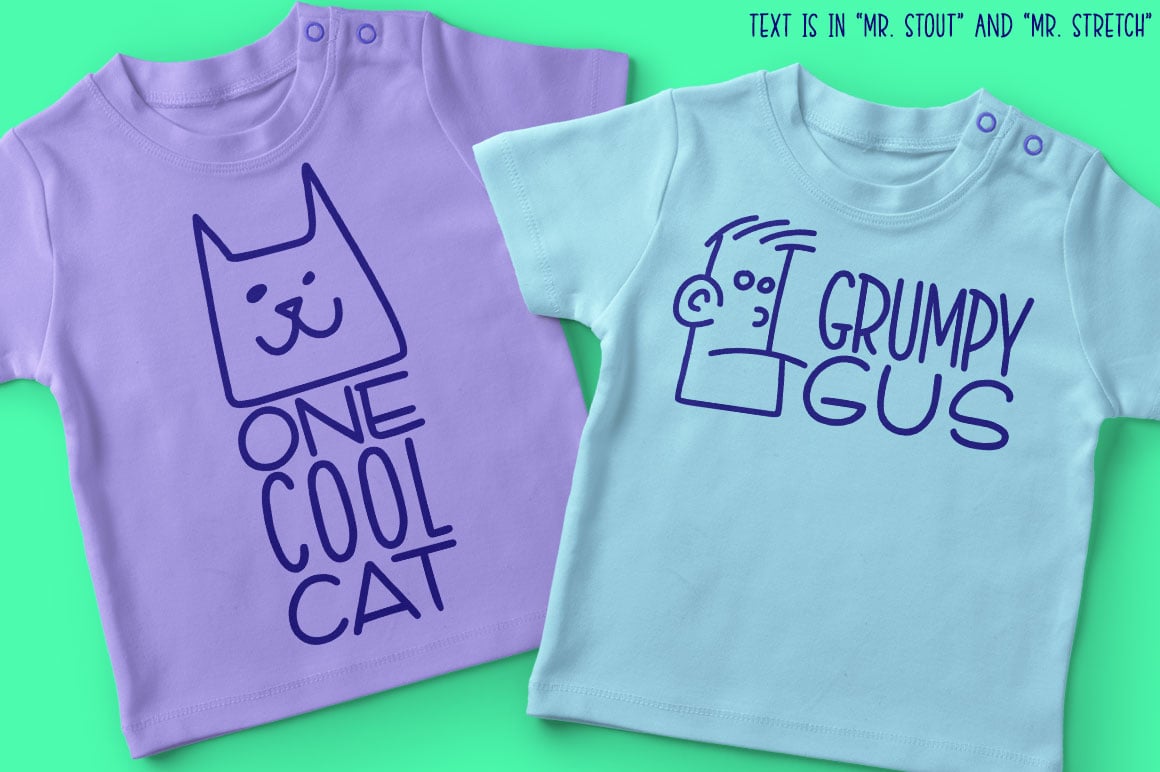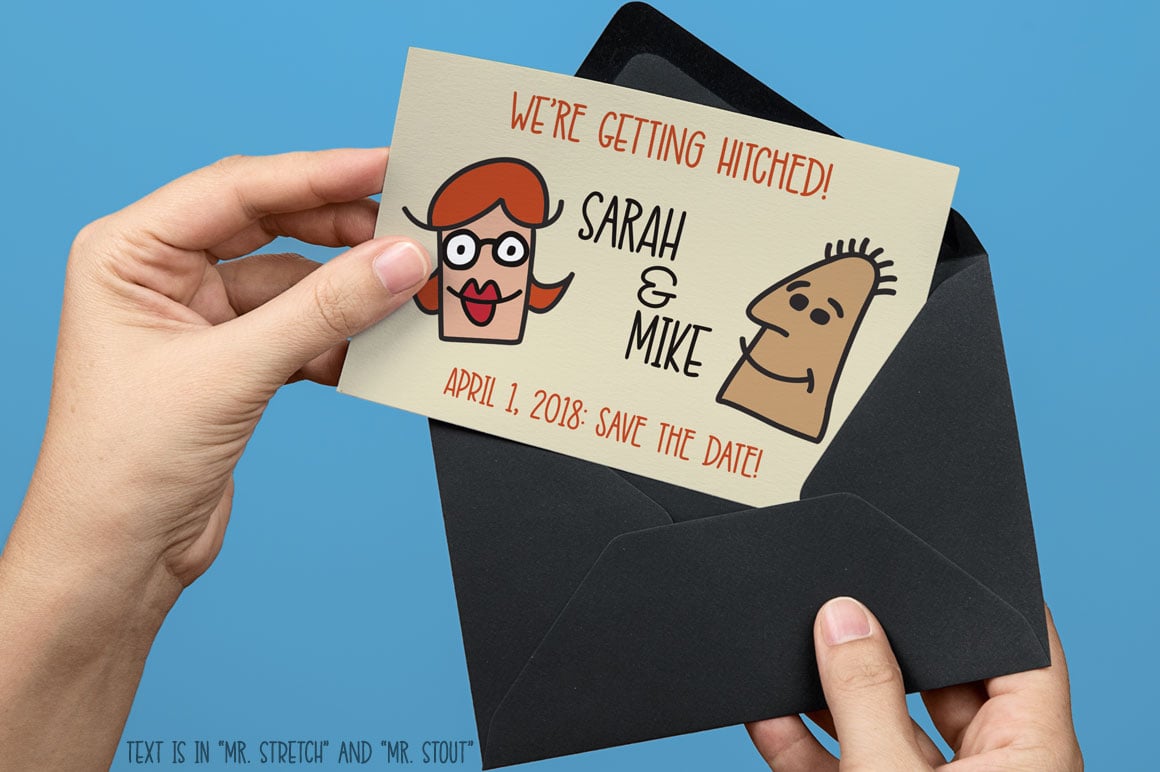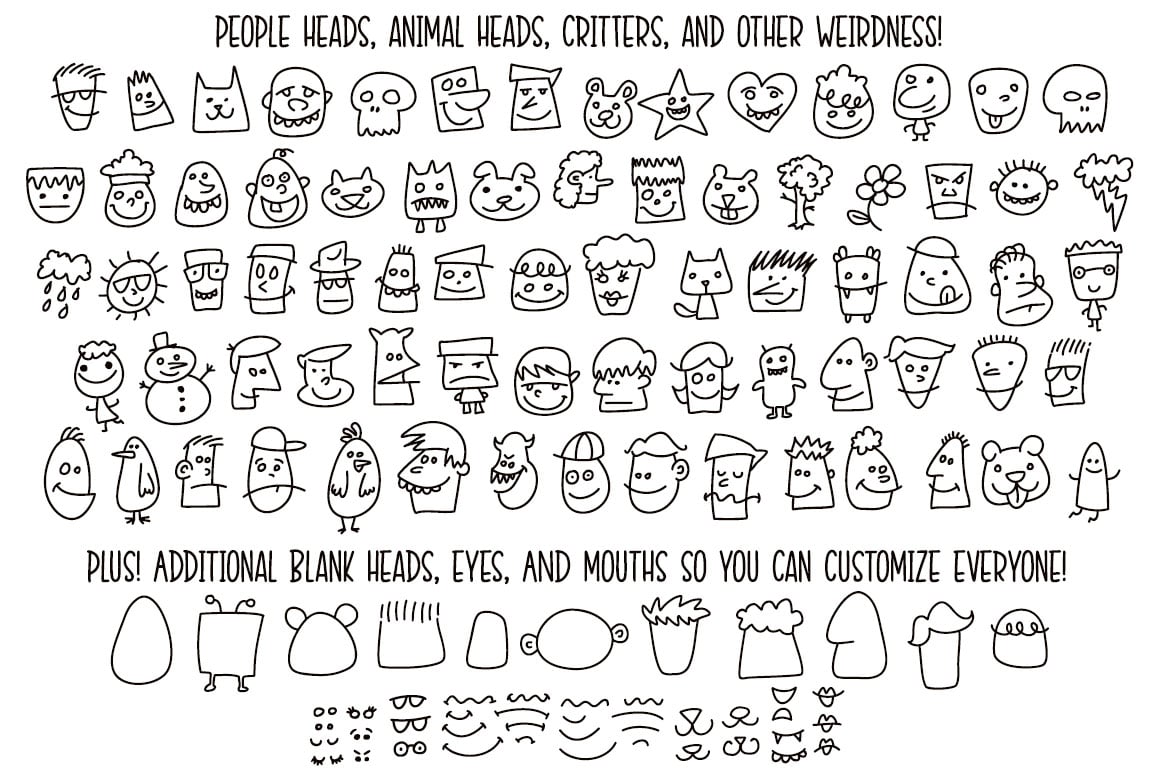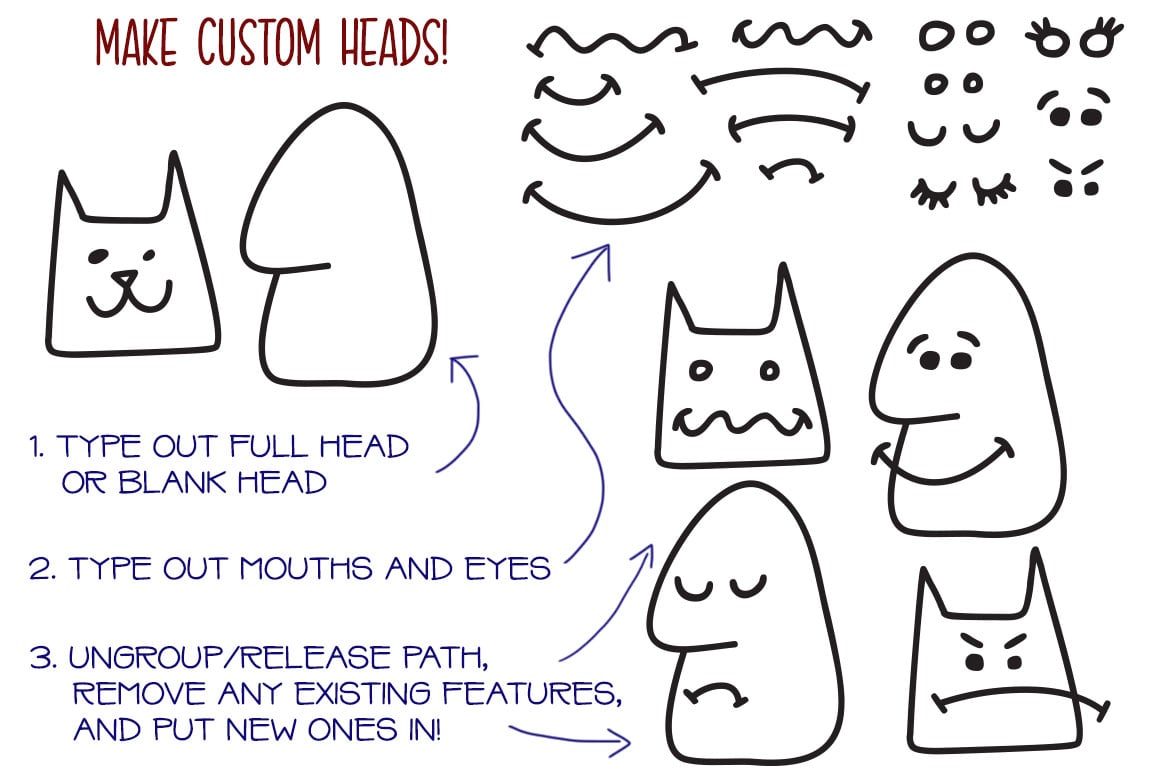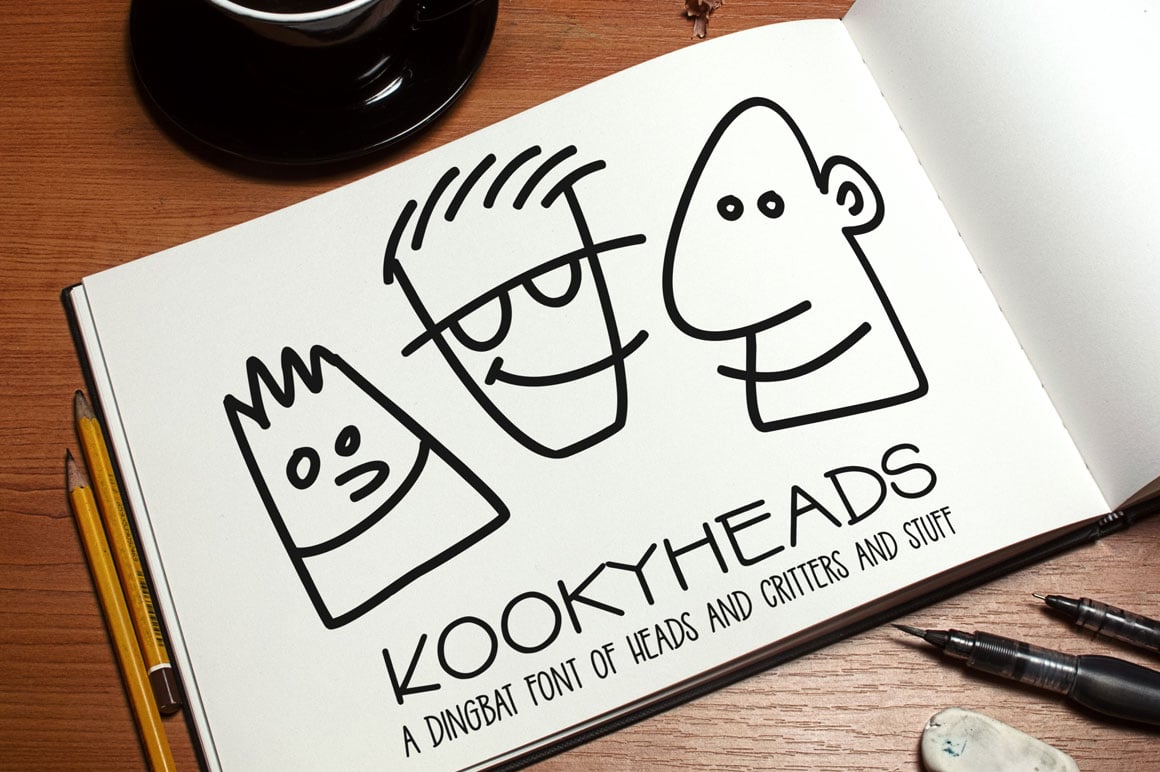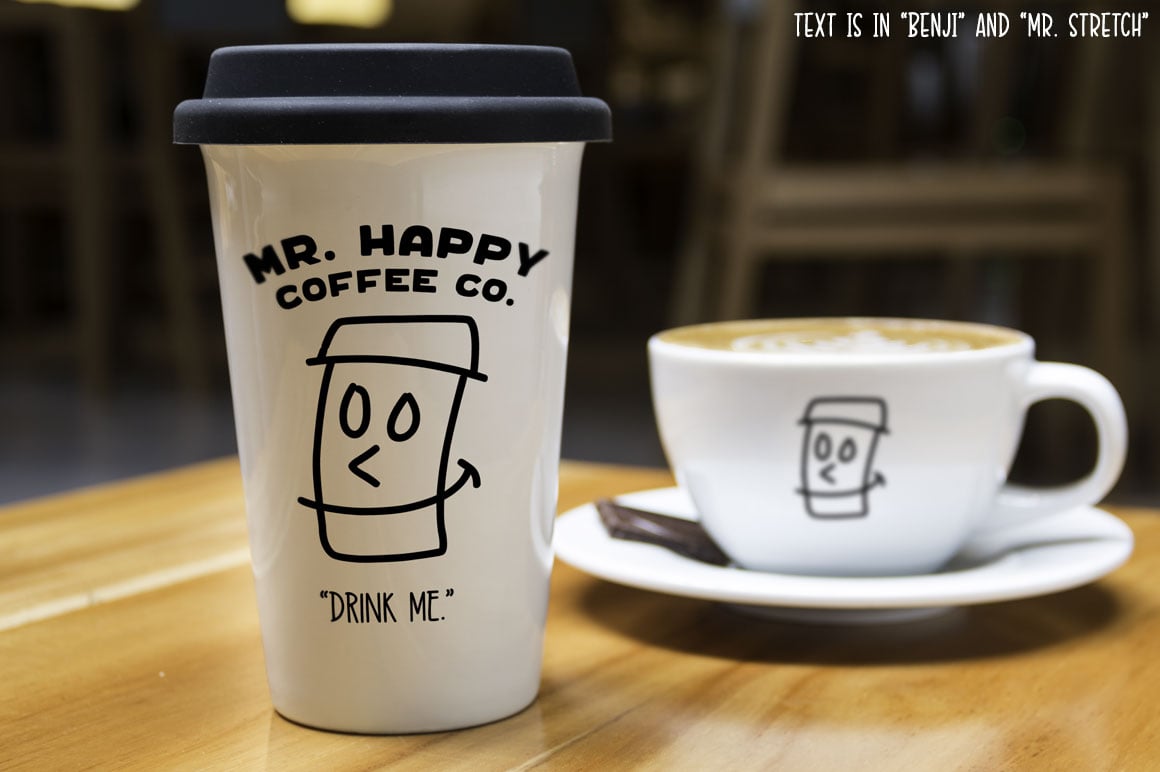
Kookyheads
They're heads. They're kooky. They're Kookyheads! I've drawn a set of doodle heads with a variety of expressions, plus some bonus blank heads and feature sets. Use the heads as-is, or type out the parts you need, expand/release/ungroup, then you can mix and match features from all of the heads and spare parts!
All of the Kookyheads are mapped to regular keyboard keys, so you don't need any additional programs to use them. Just type and go! I've included a PDF list of which heads are typed with which keys, to make it easy to find the completed head (or custom head-building parts) you need!
- 75 complete heads, doodles, and critters
- 11 blank head shapes
- 38 feature items (eyes, glasses, mouths, and more) for customization